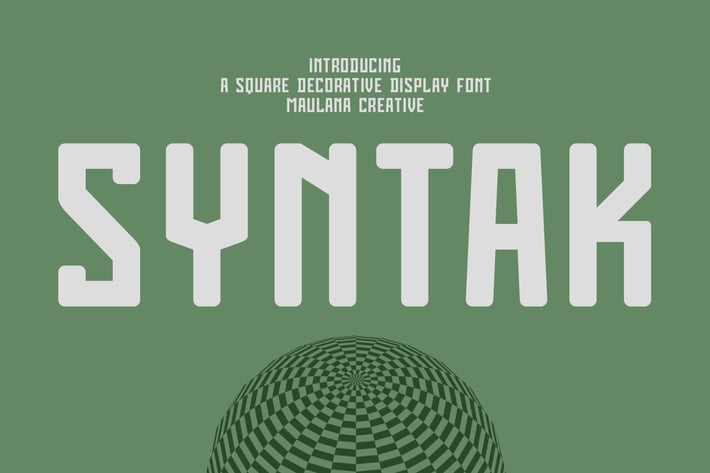
Syntak Techno Display Sans Font
Syntak is an all caps Tech vibe square-is Display Sans font. Regular stroke, fun character with a bit of ligatures and alternates. To give you an extra creative work. Syntak font support multilingual more than 100+ language. This font is good for logo design, Social media, Movie Titles, Books Titles, a short text even a long text letter and good for your secondary text font with script or serif. Make a stunning work with Syntak font.